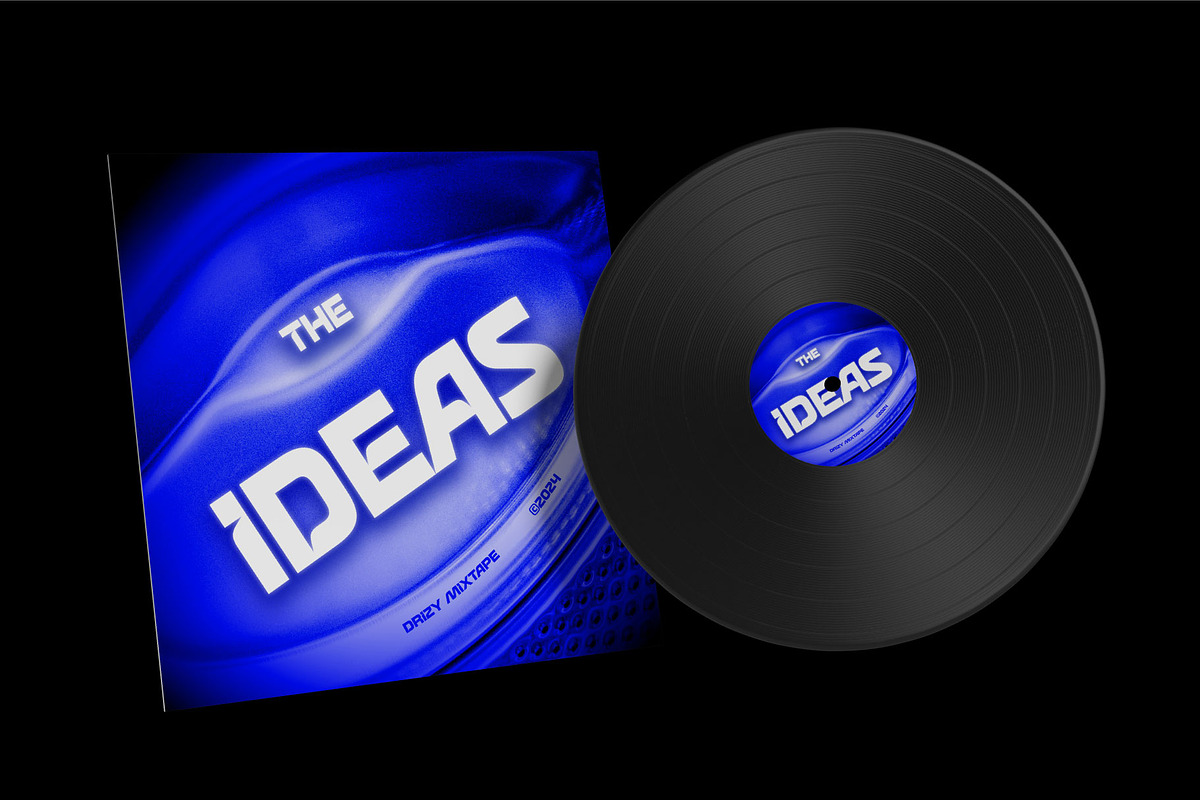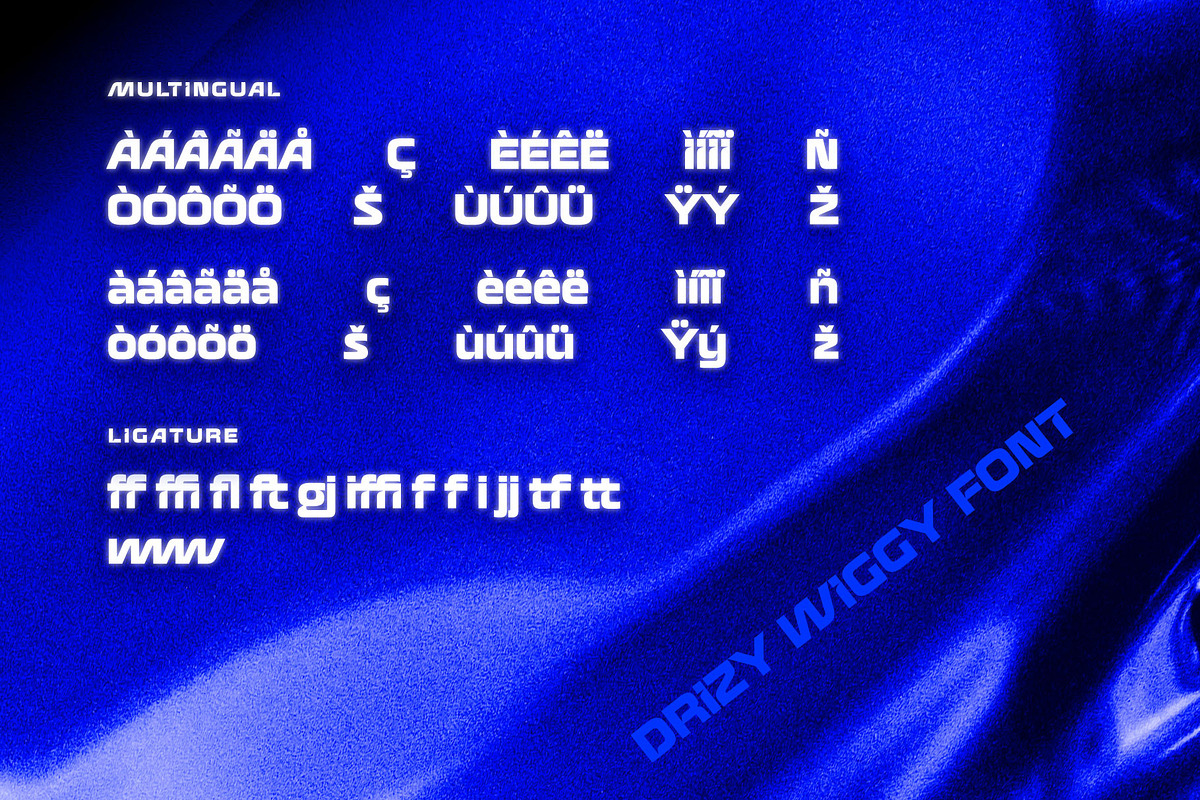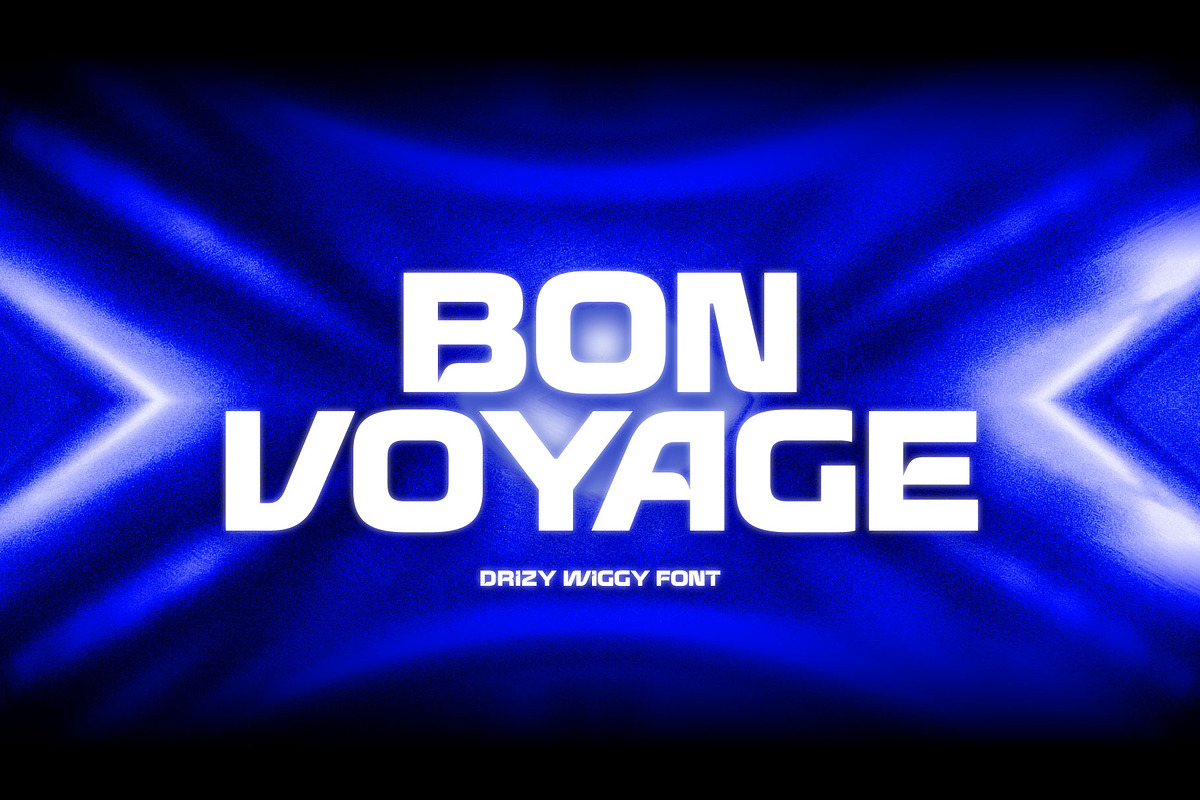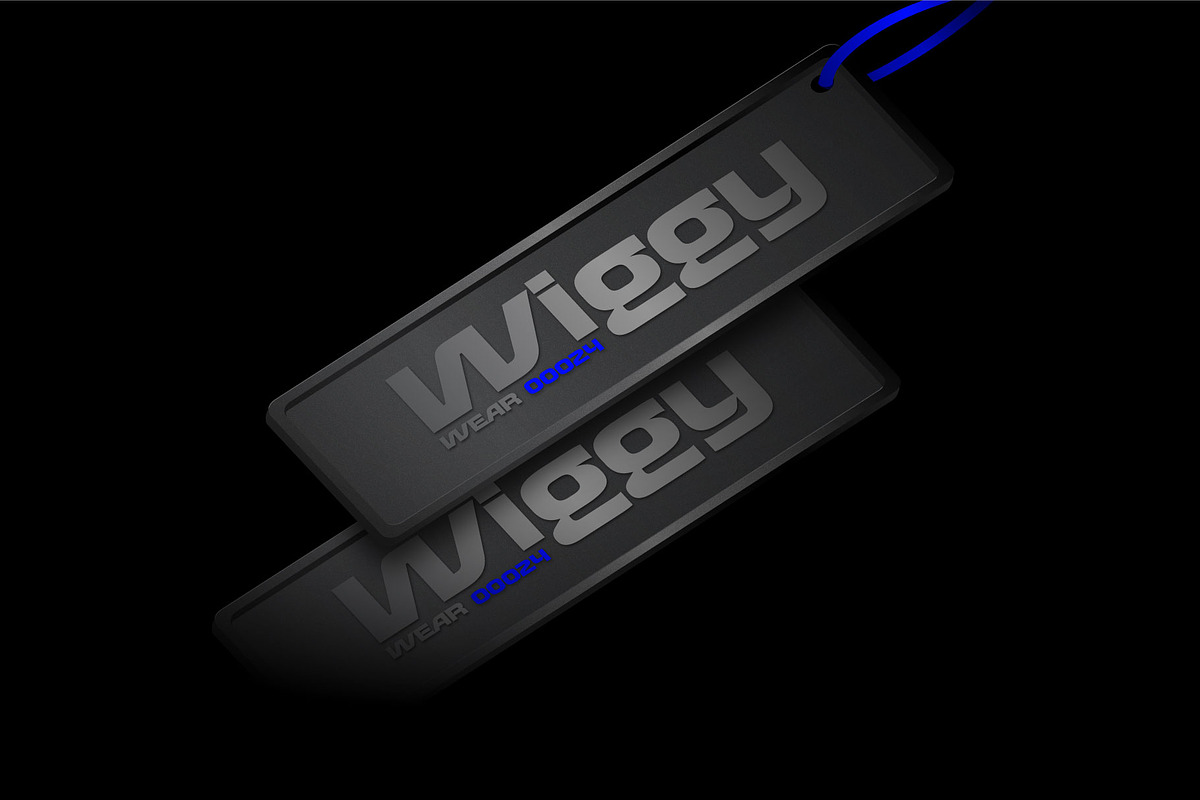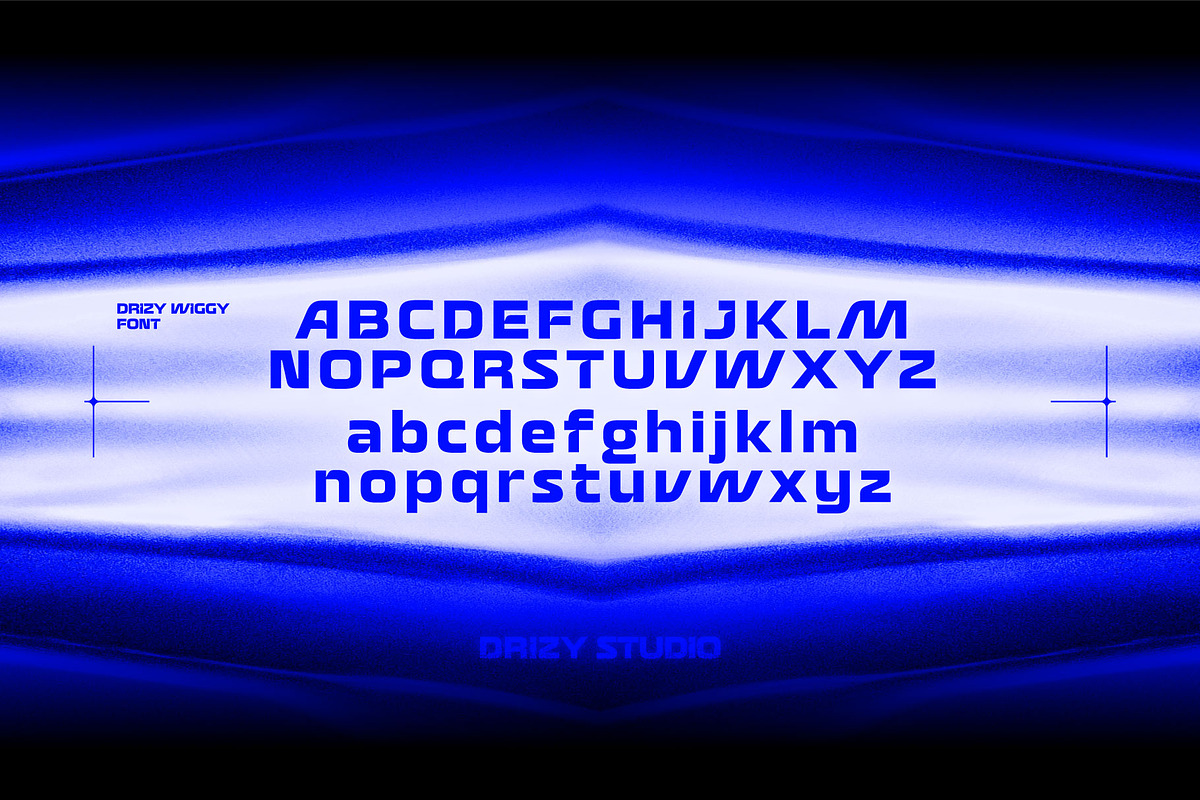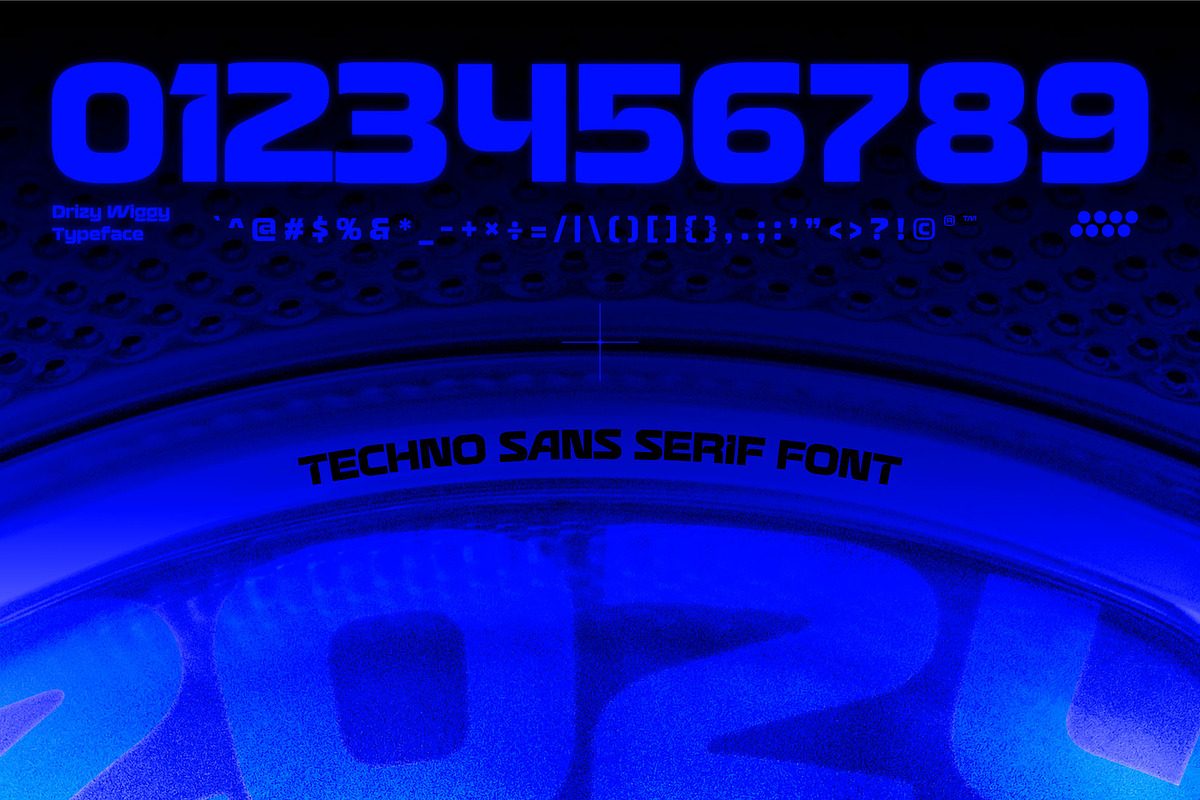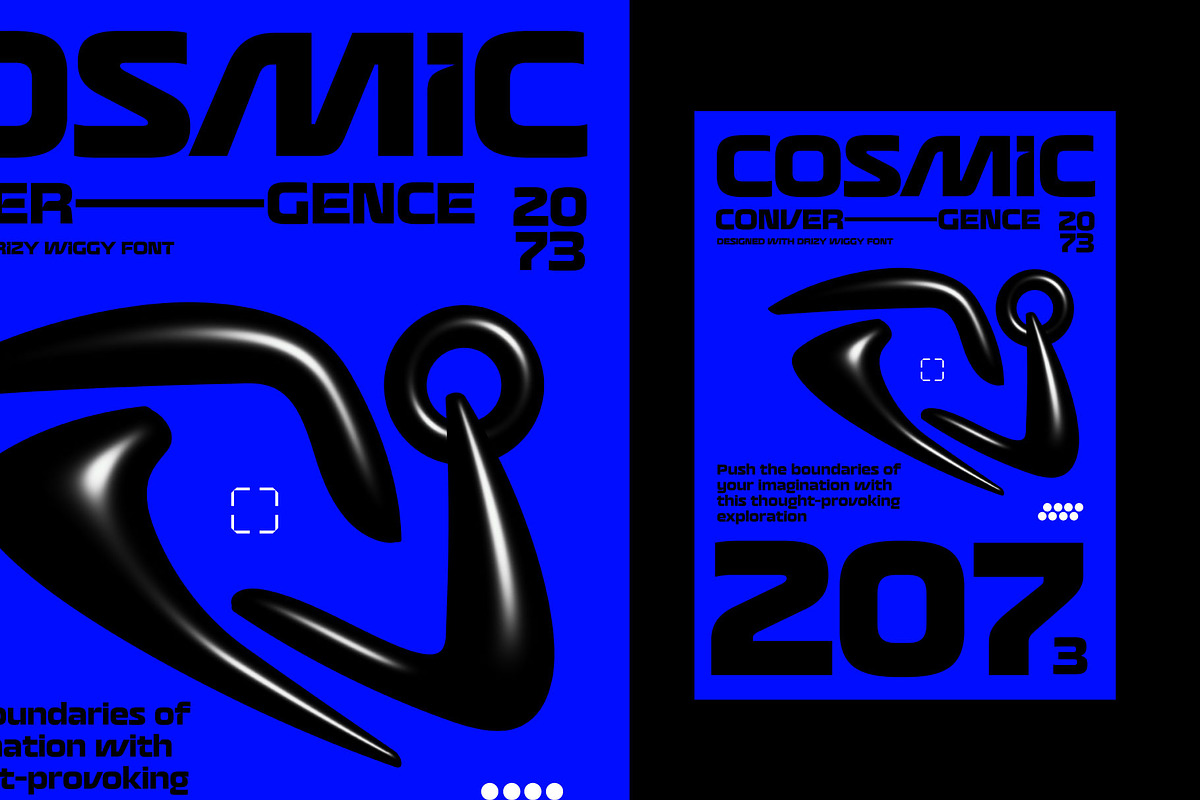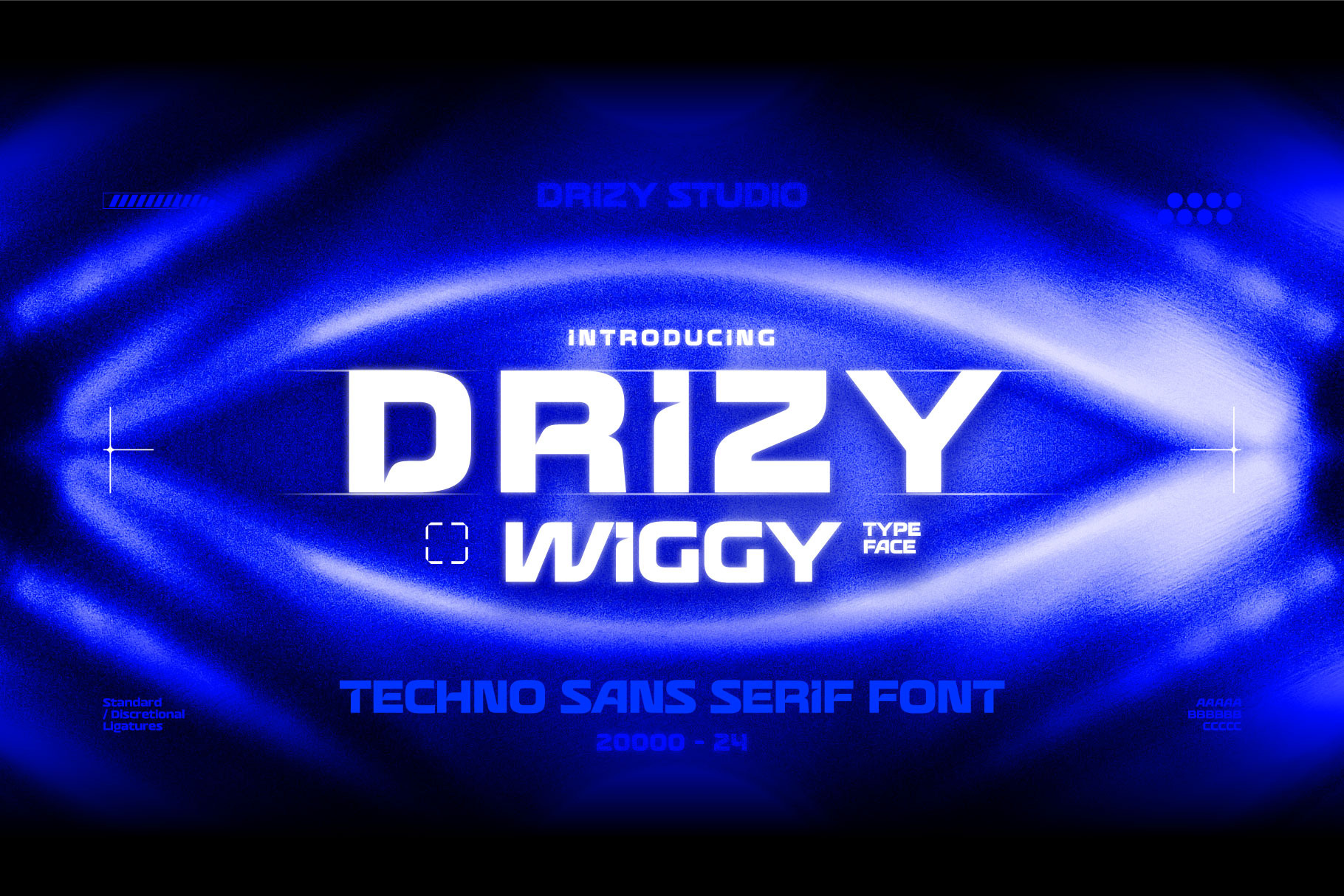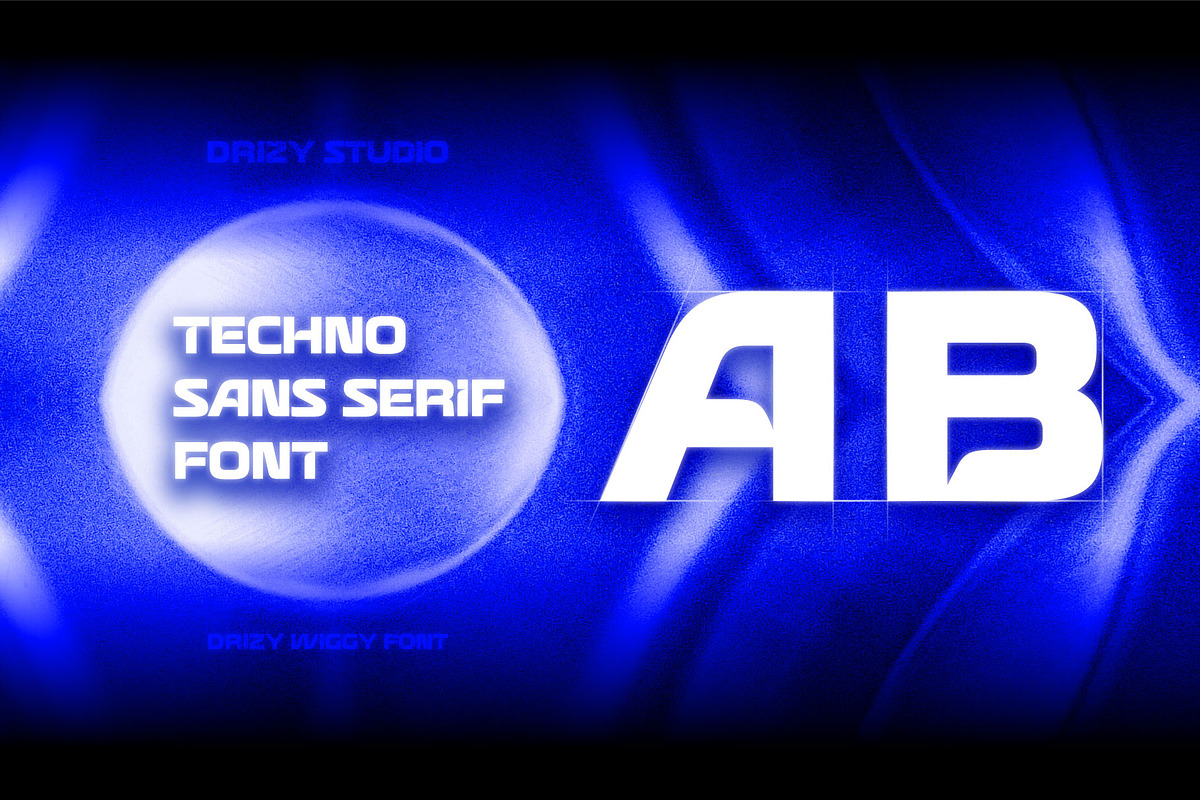
Drizy Wiggy - Techno Sans Serif font
Drizy Wiggy - Techno Sans Serif Font
Introducing Drizy Wiggy, a cutting-edge Techno Sans Serif font that embodies the essence of modernity and innovation. Crafted with precision and a futuristic flair, Drizy Wiggy is the perfect typeface for those seeking a bold and dynamic aesthetic in their design projects.
Drizy Wiggy features: Uppercase & Lowercase Punctuation & Numbers Multilinguals Ligatures
Elevate and explore the design possibilities with this techno font!